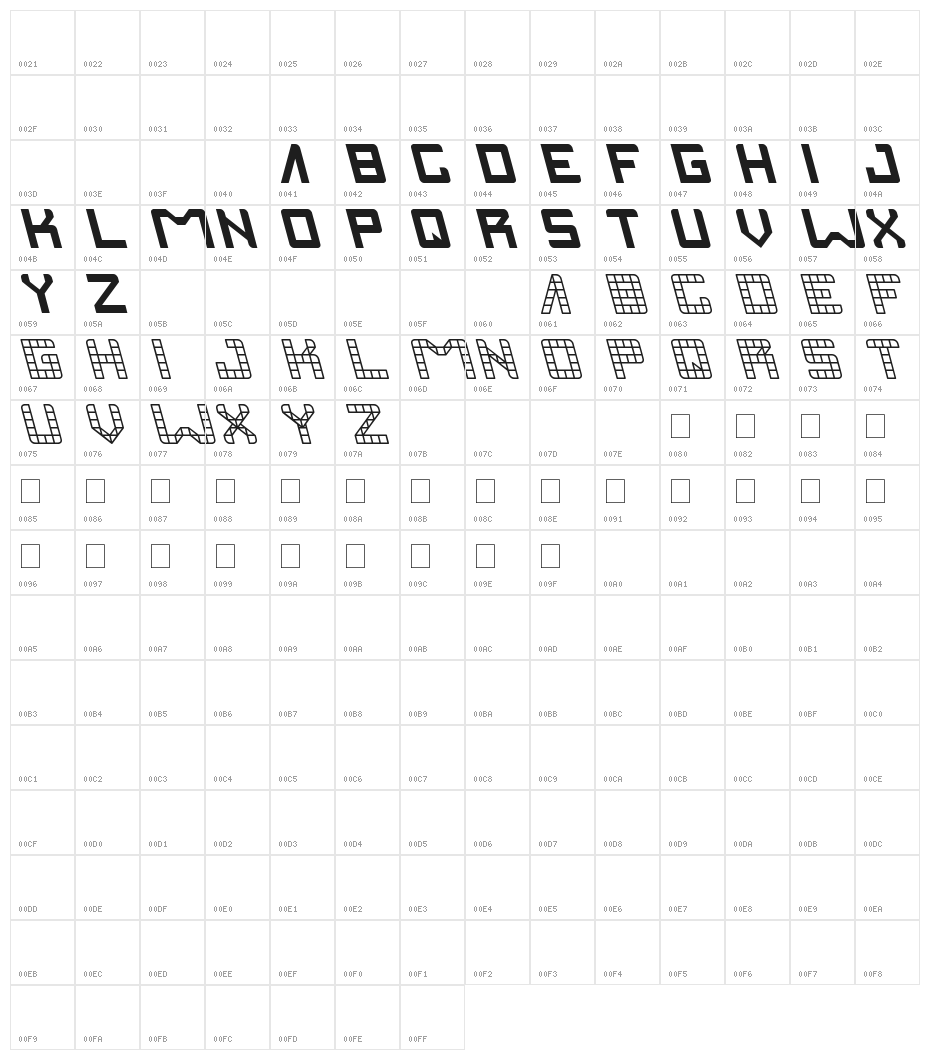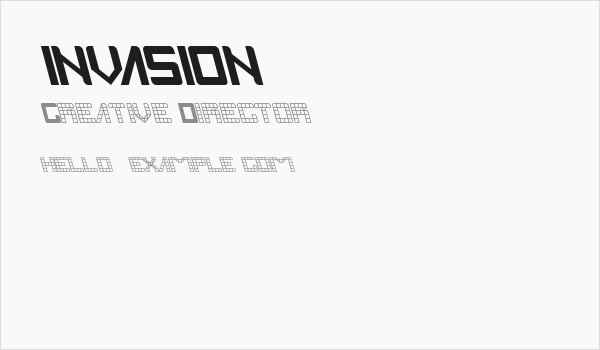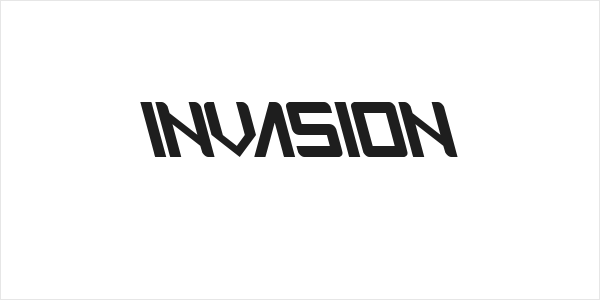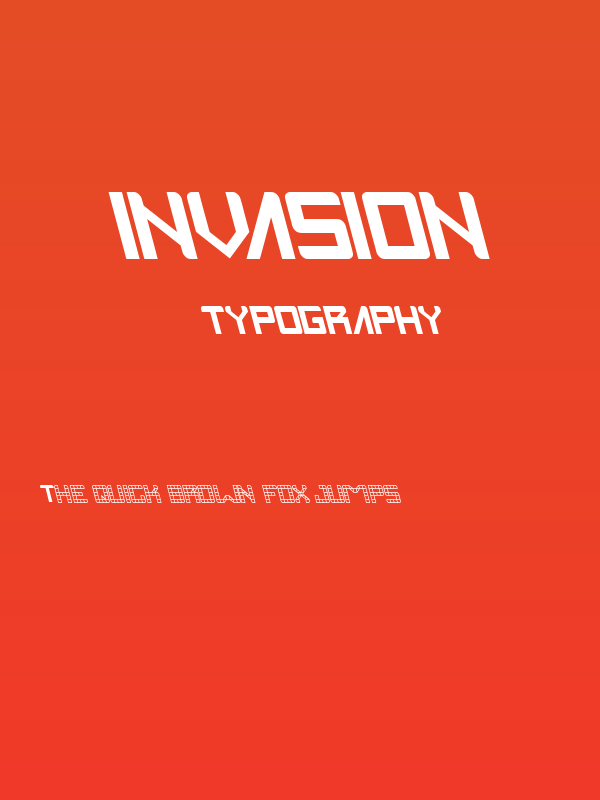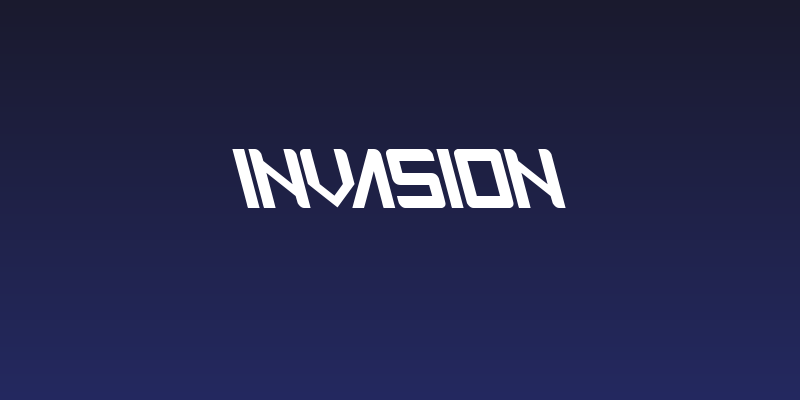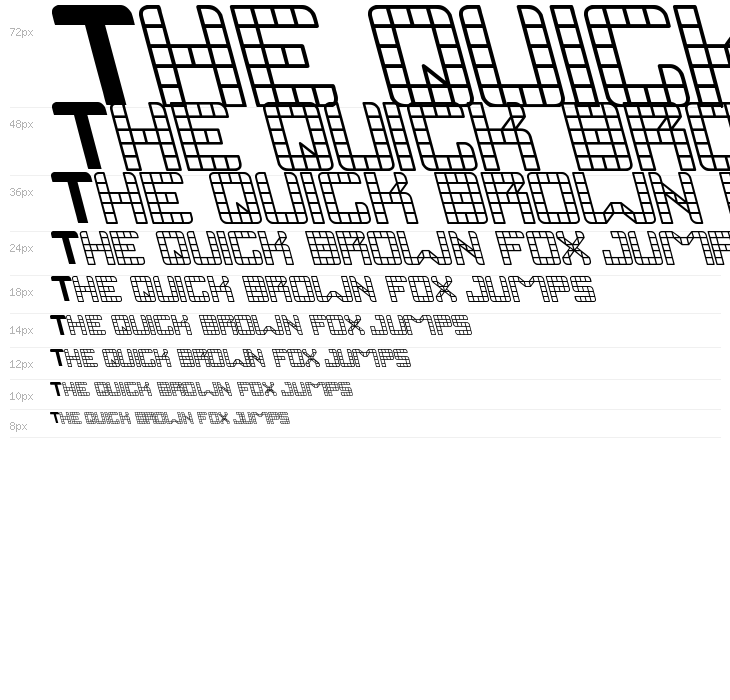
INVASION Font
INVASION Description
This font features a bold, geometric style with a futuristic and industrial aesthetic. The uppercase letters are constructed with sharp angles and straight lines, creating a sense of precision and modernity. The grid-like pattern in the second variation adds a unique, tech-inspired texture, reminiscent of digital displays or circuit boards. The overall design is clean and structured, making it suitable for projects that require a contemporary and edgy look. The font's strong presence and distinctive character make it ideal for attention-grabbing headlines or branding that aims to convey innovation and forward-thinking.
| Overall Style | Futuristic, Industrial |
| Proposed Projects | Ideal for tech branding, sci-fi posters, video game titles, and modern advertising. |